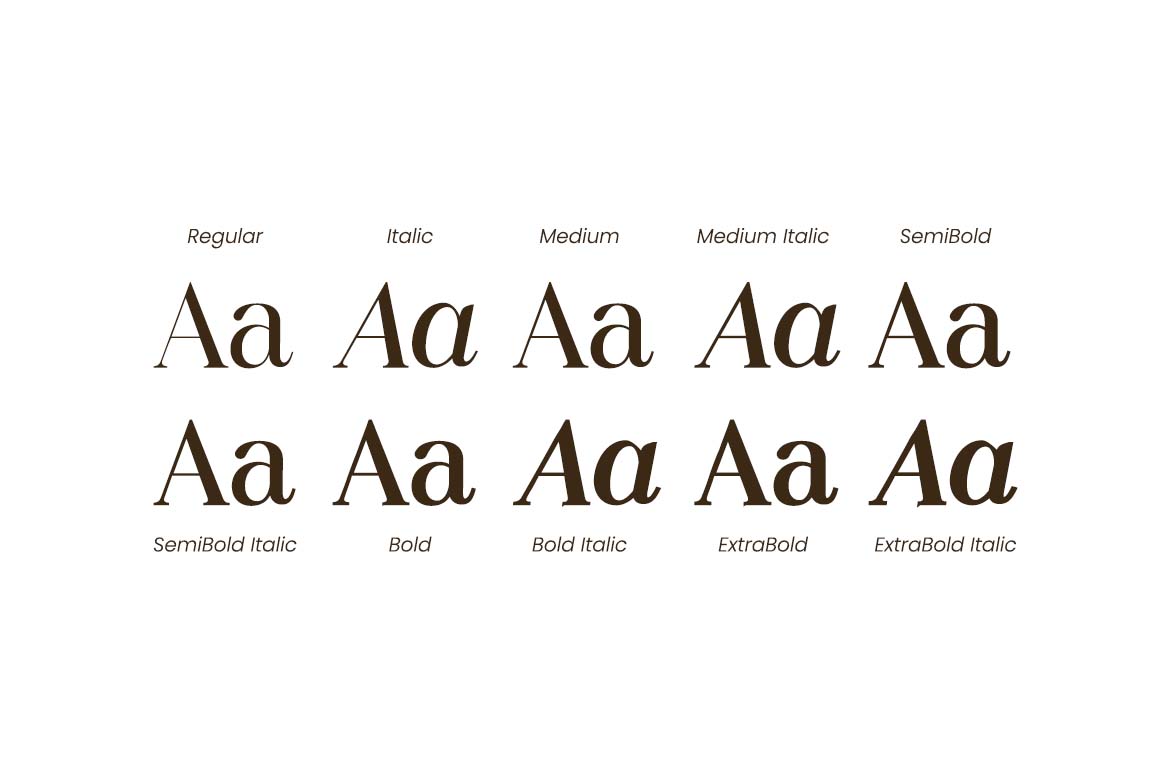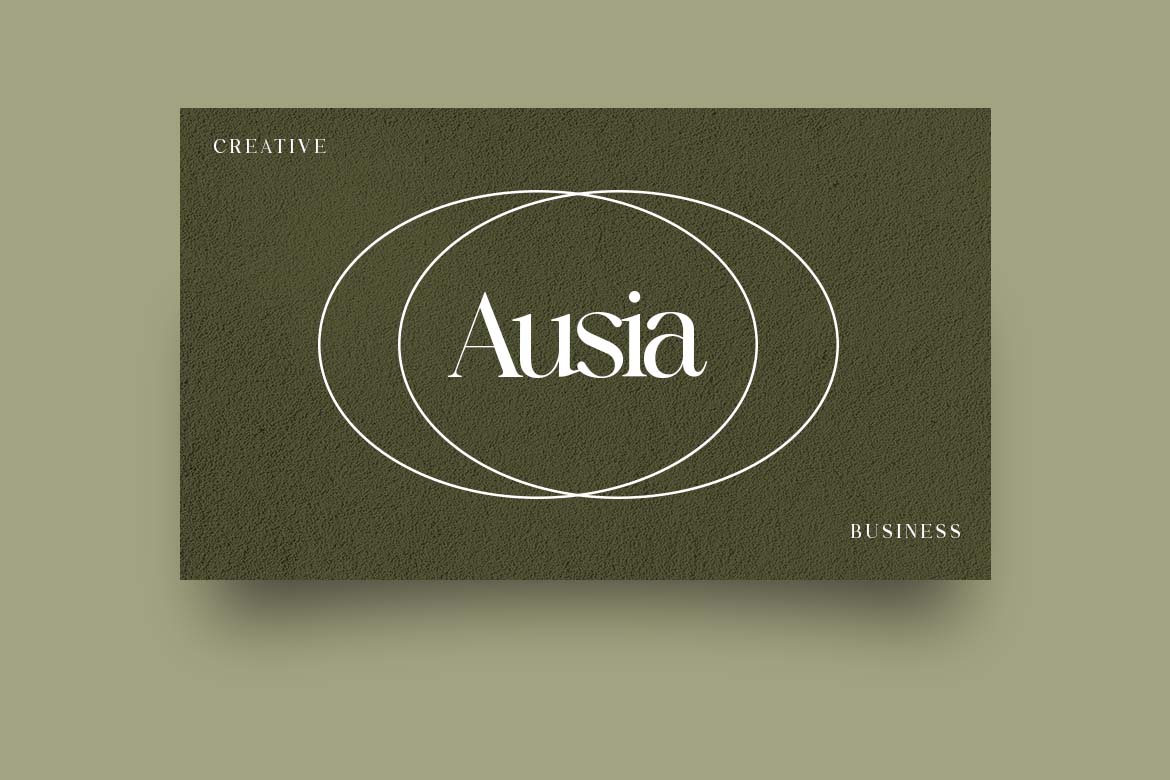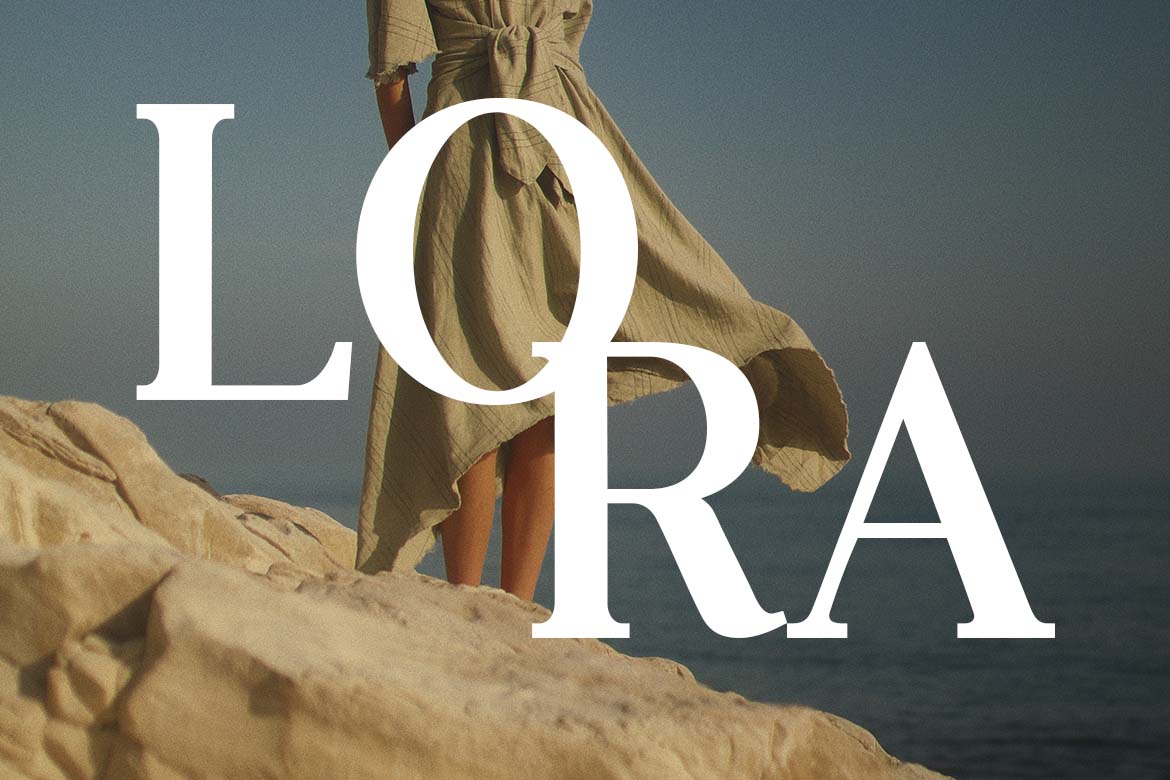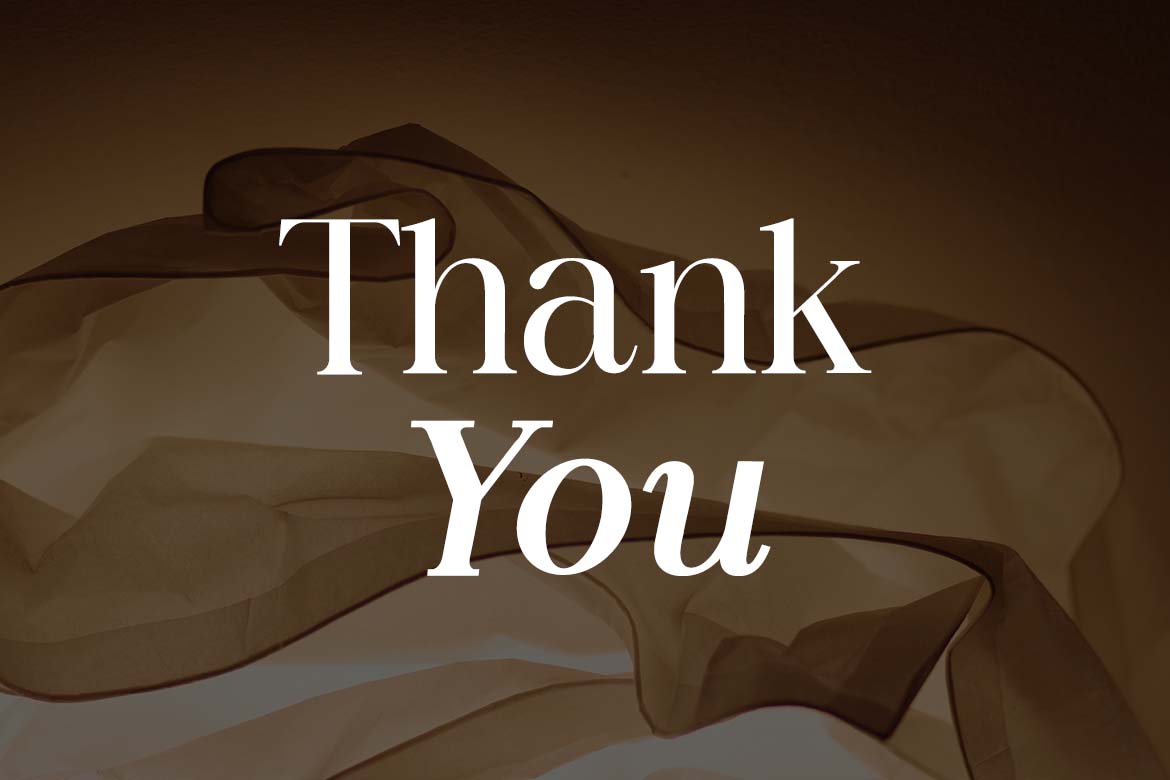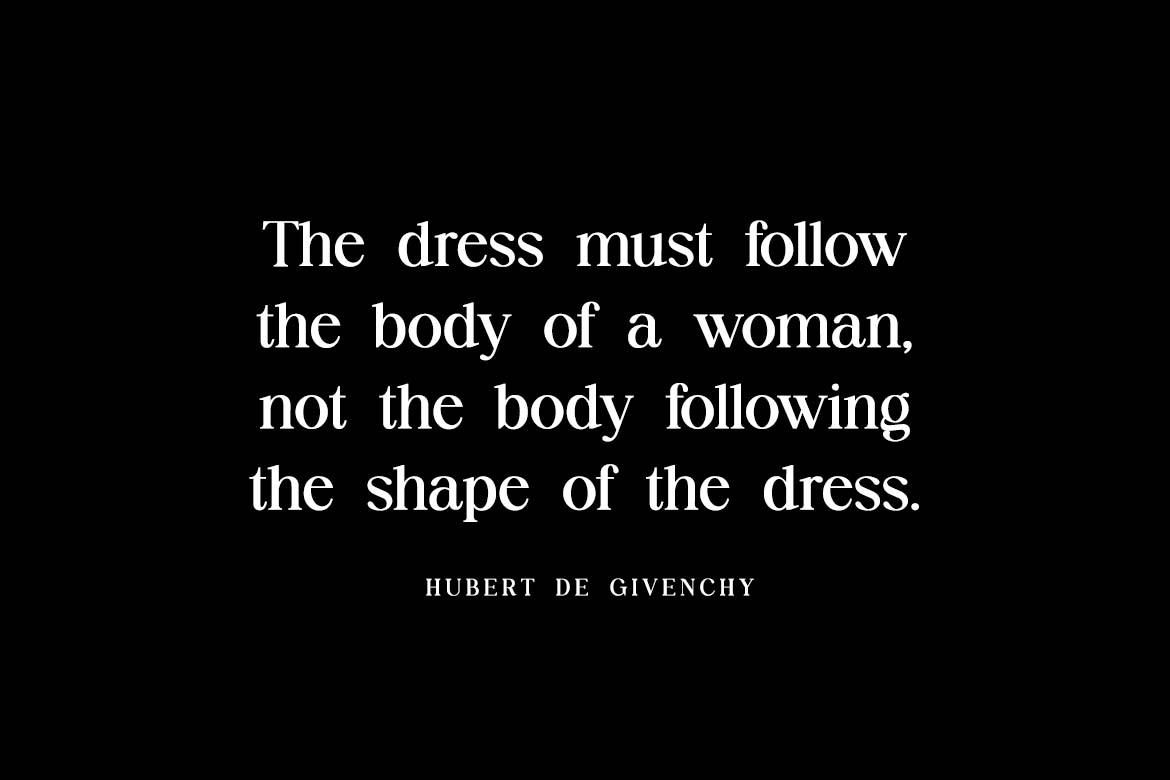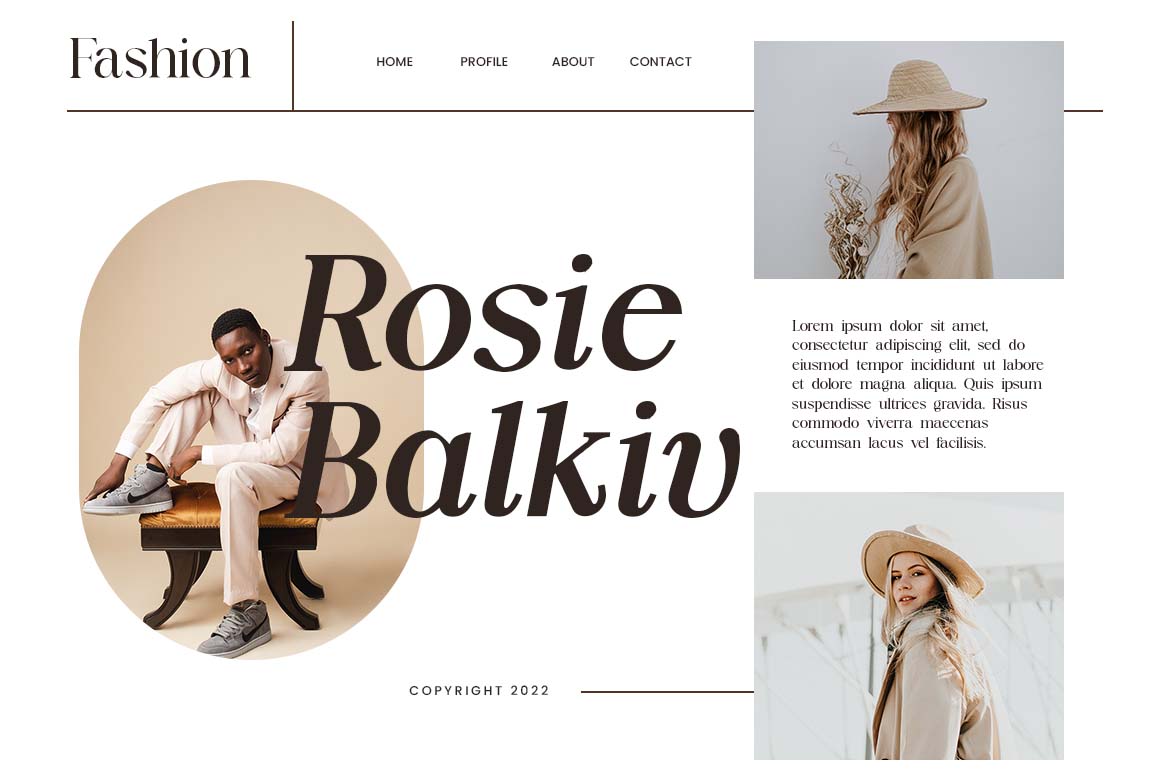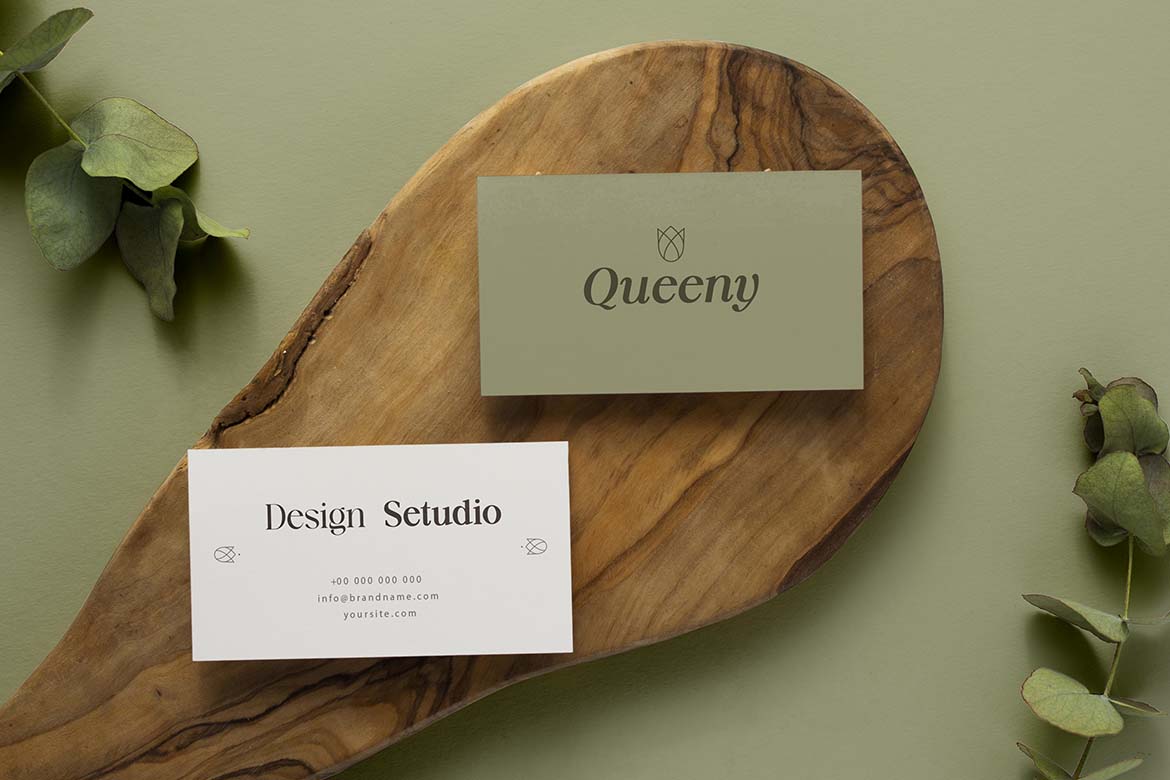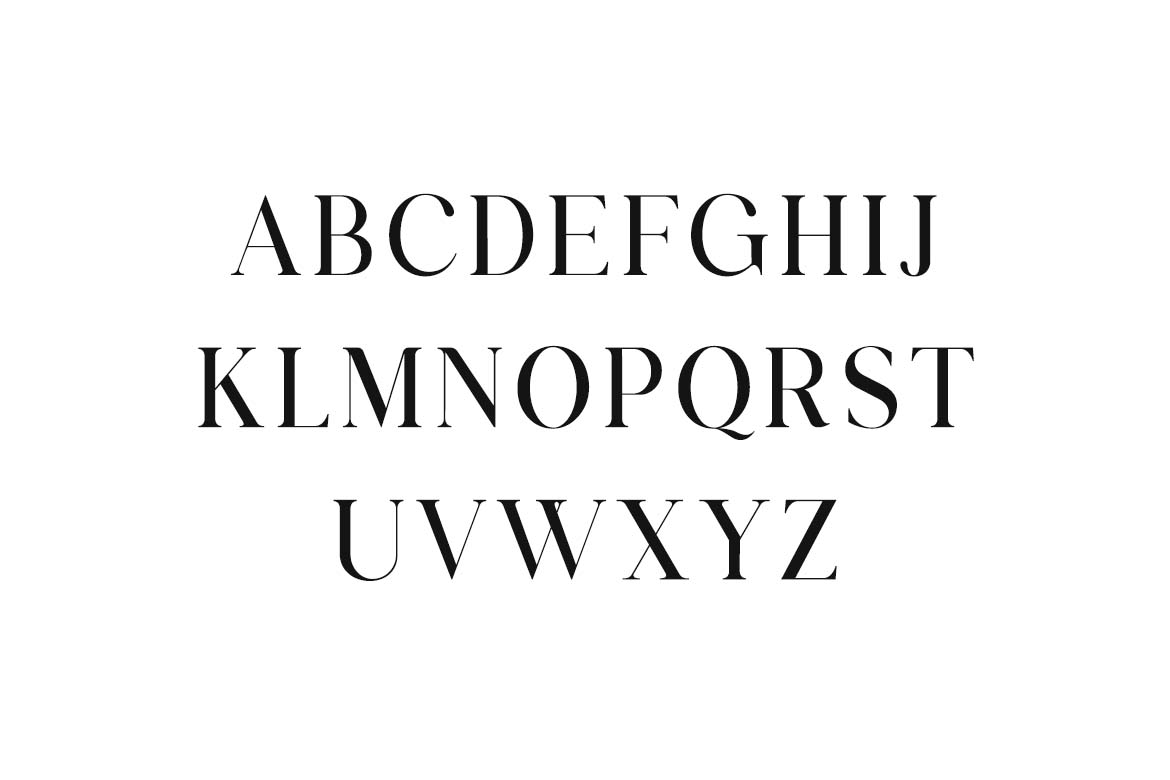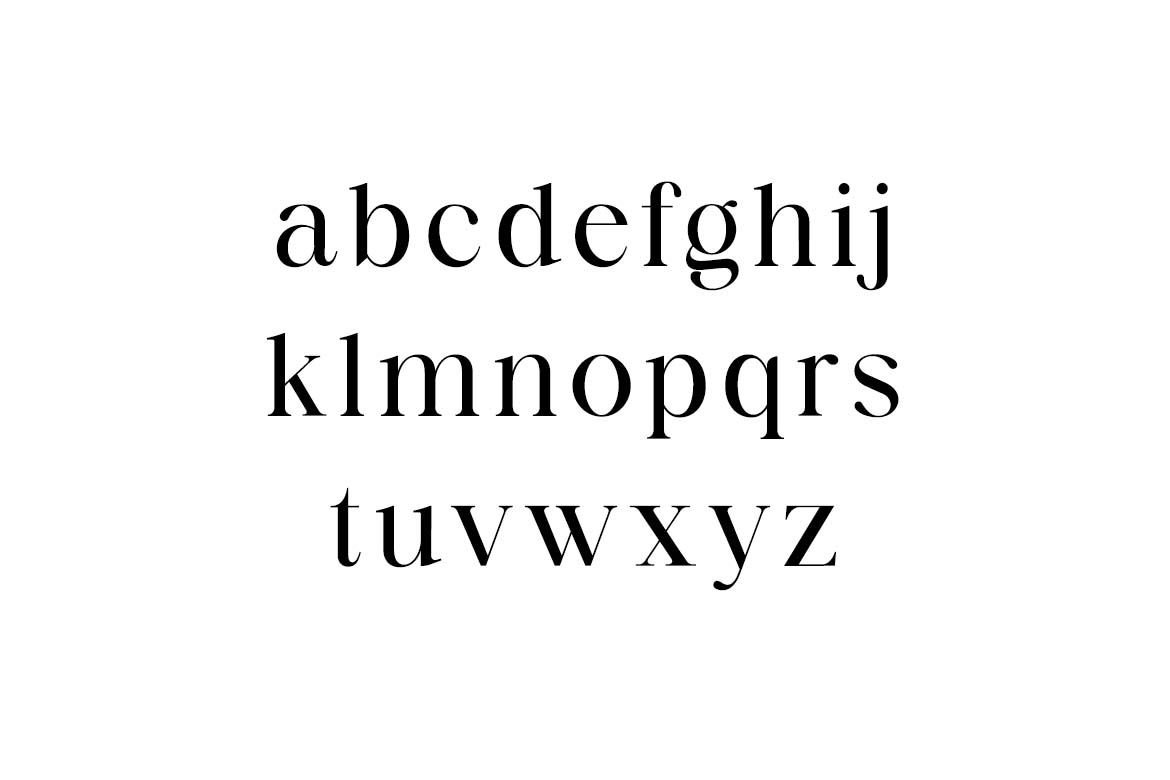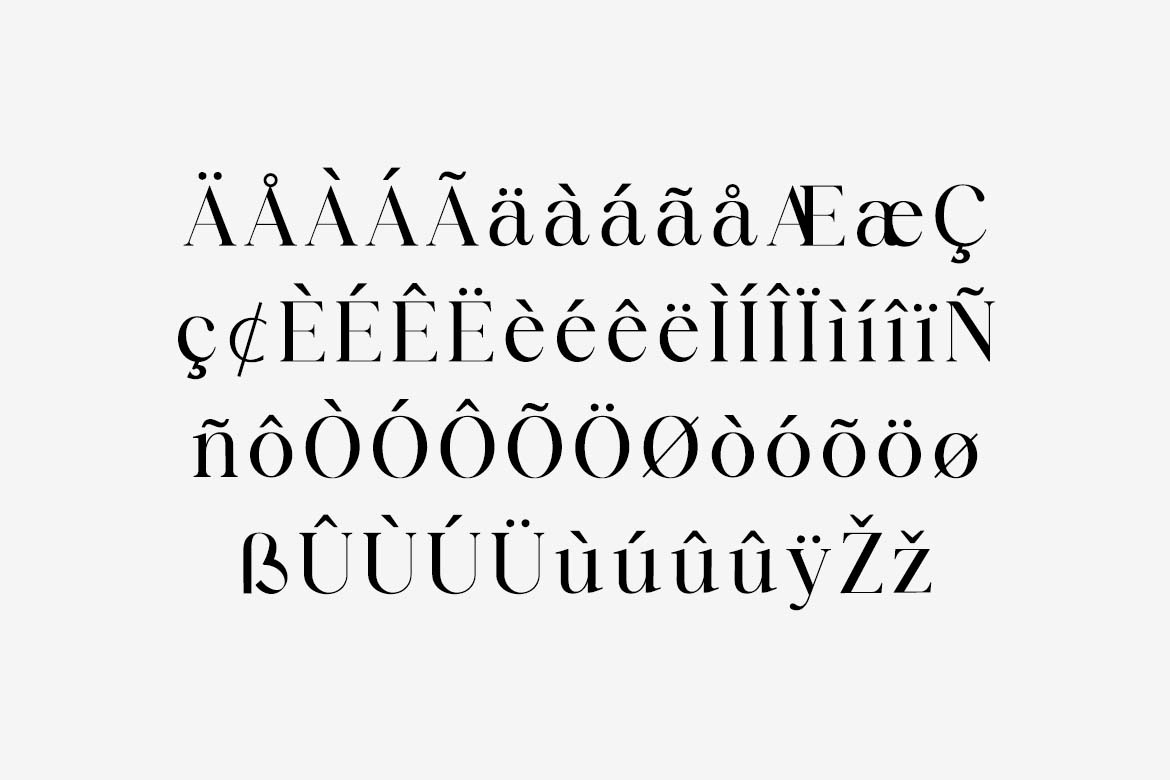
The Heritage Legacy Vintage Serif Family Font
The Heritage Legacy is a vintage serif family from UI Creative. The roman styles have strong contrast, sharp bracketed serifs, tall ascenders and ball ends on the a, c, f, r and y, which gives them an old-print, heirloom look. The italics are the family’s signature: narrow and flowing, with curled strokes that come close to handwriting in the heavier weights.
Ten styles, from Regular to ExtraBold, each with its own italic, let you pair a bold roman name with an italic tagline in one family. It suits fashion and lifestyle brands, business cards and stationery, magazine and web headlines, quote posts and logos. The previews show it on a “Rosie Balkiv” fashion website, “Queeny” and “Ausia” business cards and a “LORA” campaign photo.
• 10 styles: Regular, Italic, Medium, Medium Italic, SemiBold, SemiBold Italic, Bold, Bold Italic, ExtraBold and ExtraBold Italic
• Accents for French, German, Spanish, Portuguese, Italian, Dutch and the Scandinavian languages